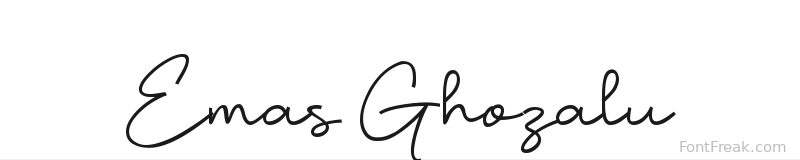
Emas Ghozalu
Emas Ghozalu, crafted by Wahyu Eka Prasetya, is a stunning script font that embodies elegance and creativity, making it an excellent choice for various design projects. Its flowing, cursive style features smooth, interconnected letters that evoke a sense of warmth and personal touch. The font showcases a moderate stroke weight with subtle contrast, ensuring readability while maintaining a graceful appearance. The generous spacing between characters enhances legibility, making it suitable for both digital and print applications.
This versatile font is particularly well-suited for wedding invitations, where its romantic flair can add a unique touch to any celebration. Additionally, Emas Ghozalu shines in the creation of eye-catching movie posters, infusing excitement and personality into promotional material. Restaurant menus can also benefit from its charming script, inviting customers with a sense of sophistication and approachability. Content creators seeking to add a personal touch to their branding or social media graphics will find this font an invaluable asset.
The target audience for Emas Ghozalu includes graphic designers looking to elevate their projects, small business owners aiming to create memorable branding, and content creators who want to stand out in a crowded digital landscape. Its freeware licensing allows for easy access, making it an attractive option for anyone in need of high-quality typography without a financial commitment.
What truly sets Emas Ghozalu apart is its unique blend of elegance and approachability. This font not only captures attention with its graceful curves and seamless connections but also conveys a sense of familiarity and warmth. For those seeking to enhance their design projects, the Emas Ghozalu font free download is a perfect choice that will elevate any visual communication.